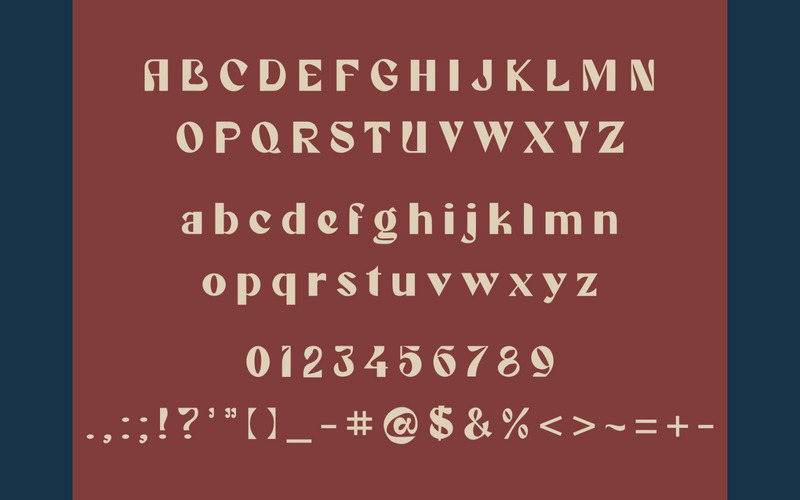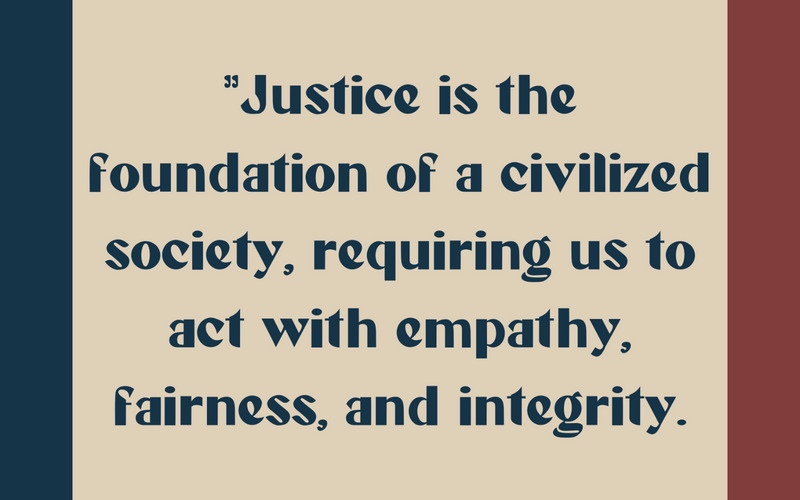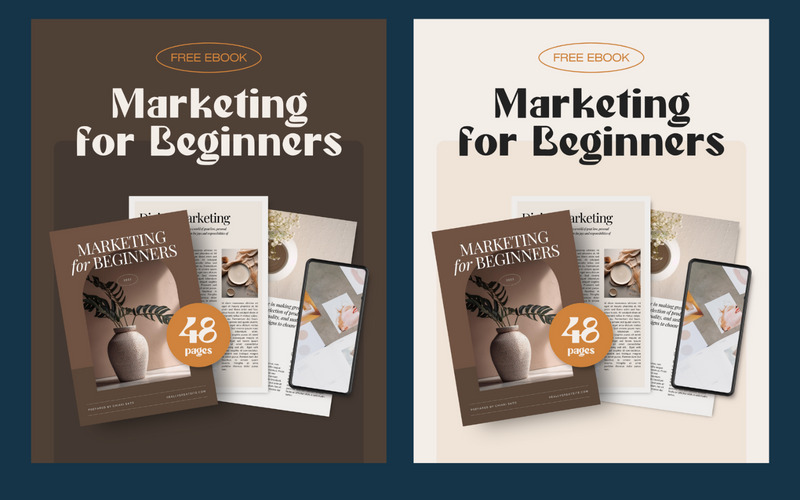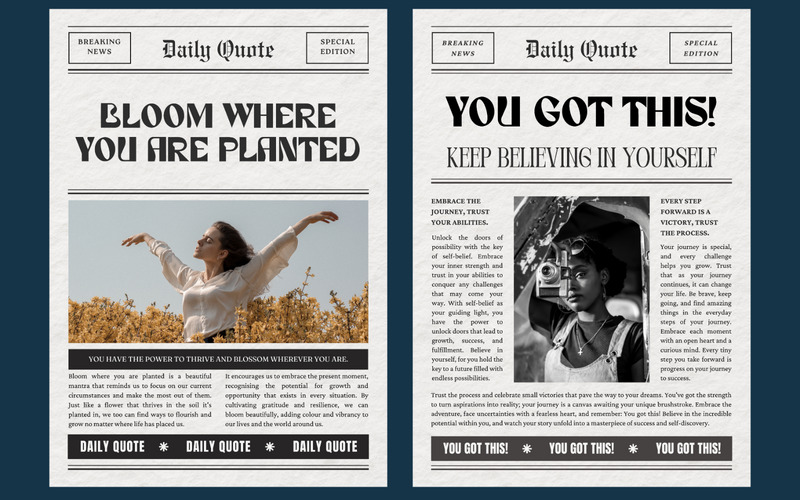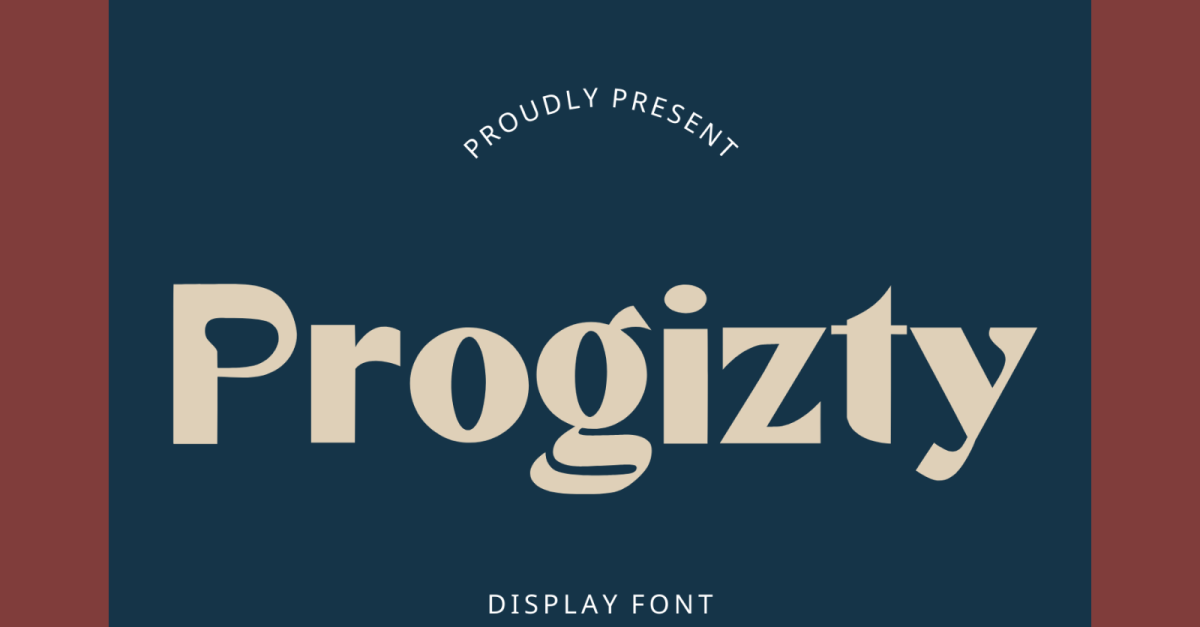
Progisty - Amazing Display Font
Introducing Progisty - Display Font
Progisty is a Lovely Display Font made with a unique and authentic style. Progisty is perfect for those of you lovers of fonts with a casual and natural style.
This Font can be used for any variety of purposes, such as: Photography, Wedding Ceremony, Invitation, Packaging, Logo Type, Branding Design, Fashion and also can be used for Business purpose.
This Font Template contains Modern, Elegant, Creative, Professional and Unique Concept.
- Uppercase and Lowercase letters
- Numbering and Punctuations
- Multilingual Support